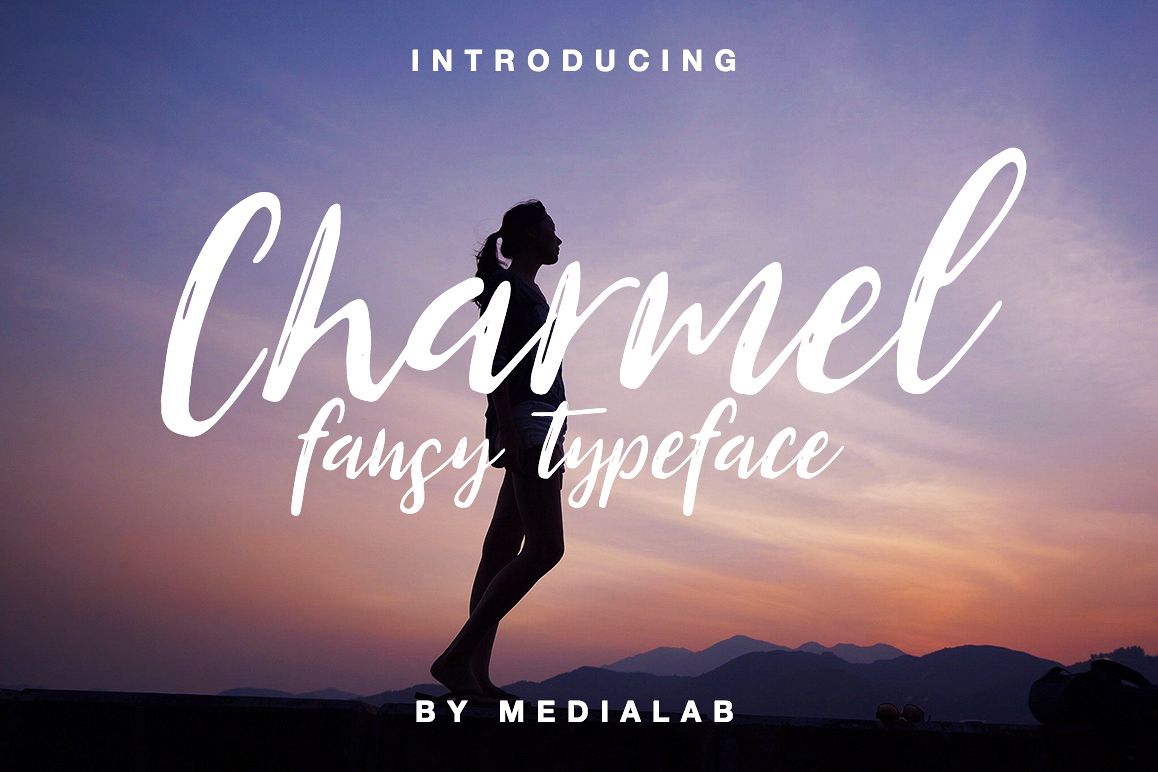
Charmel handwritten font
Charmel is amazing lettering font, every single letters have been carefully crafted to make your text looks beautiful. Both these fonts complement each other.
You can make compositions from font, it's easy and simple. With lettering script style this font will perfect for many different project ex: quotes, blog header, poster, wedding, branding, logo, fashion, apparel, letter, invitation, stationery, etc.